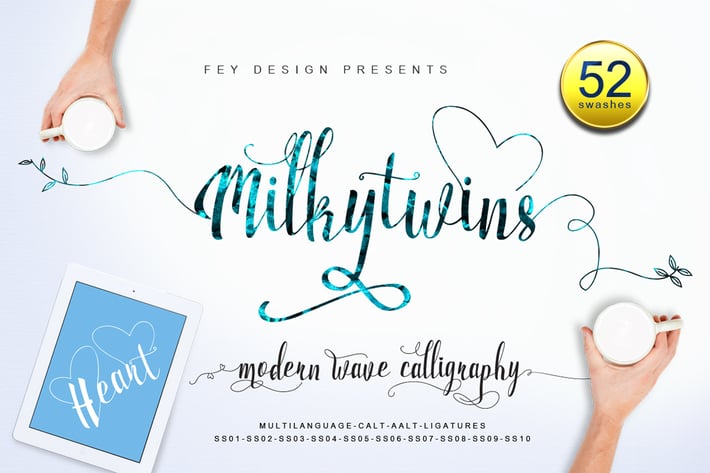
Milkytwins - Script Font
Suitable for design, element design, wedding, event, t-shirt, logo, badges, sticker, and awesome work, etc...
About Item:
- So much more Swashes
- Combination alternative ligature fonts
- Standard Ligatures, Stylistic Set, Multilanguage Characters
- Modern Calligraphy Typeface
- Unique style fonts
- Easy customize
- Ready to use "Milkytwins Modern Wave Calligraphy" for Awesome Work